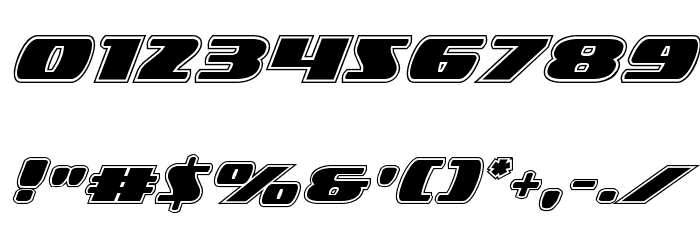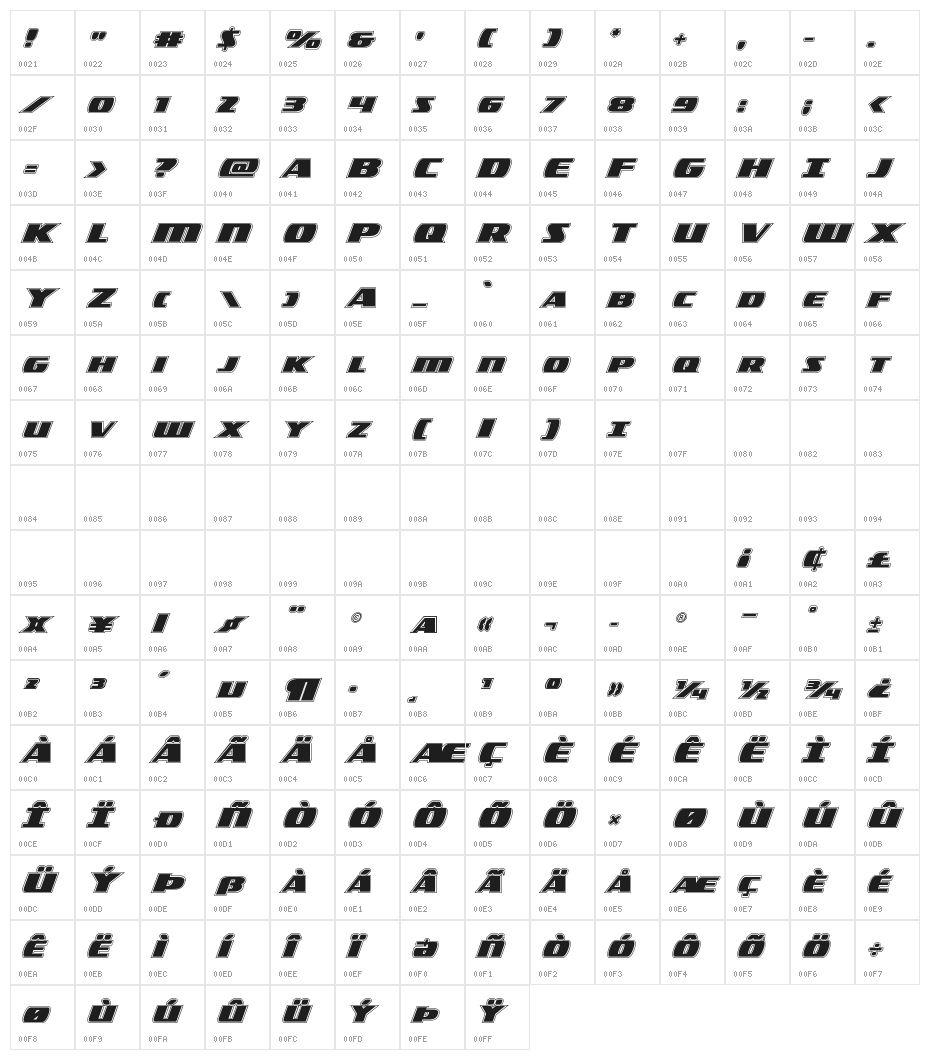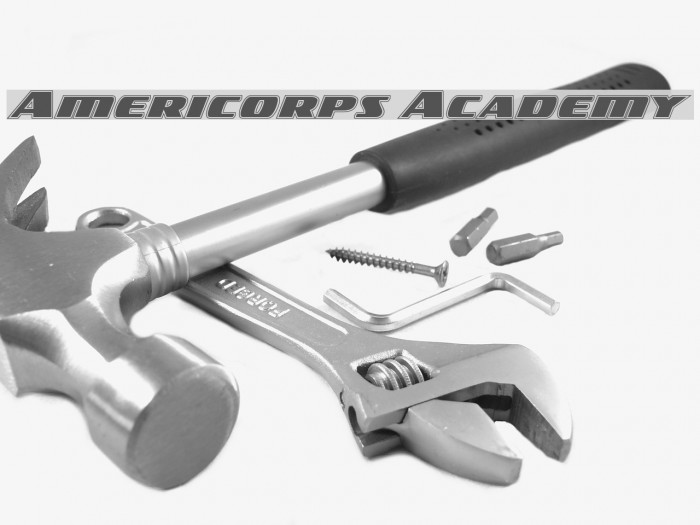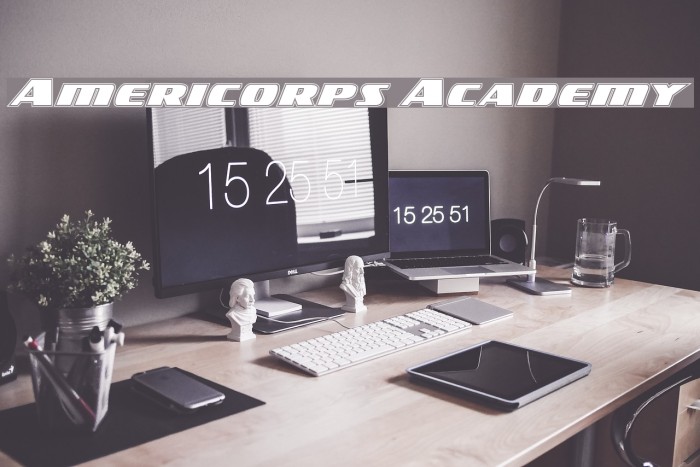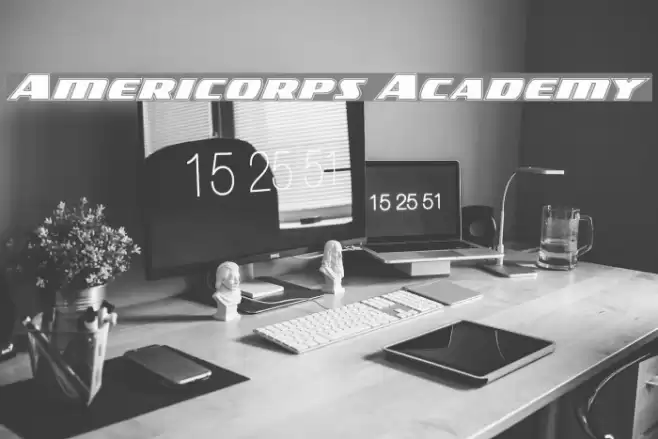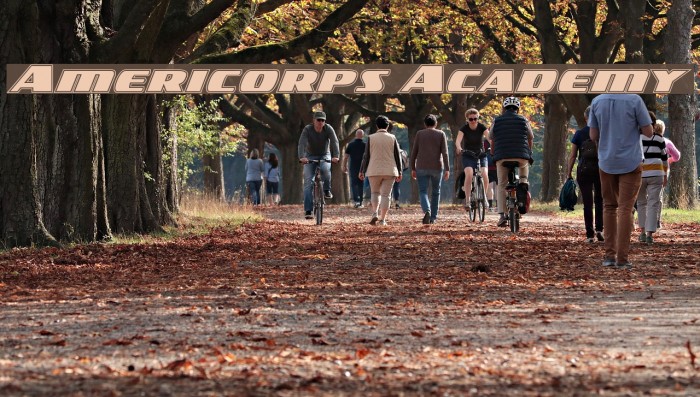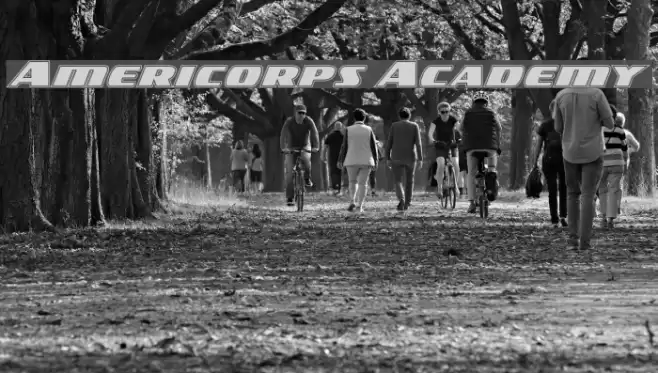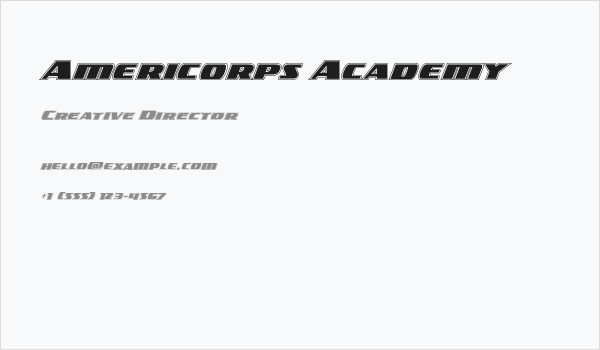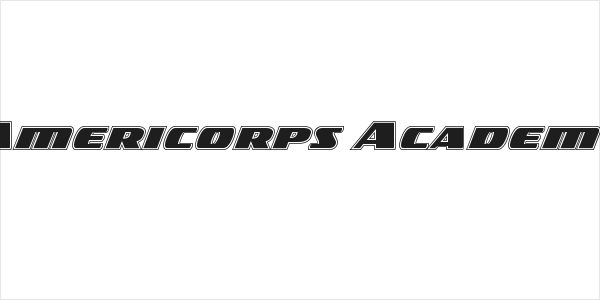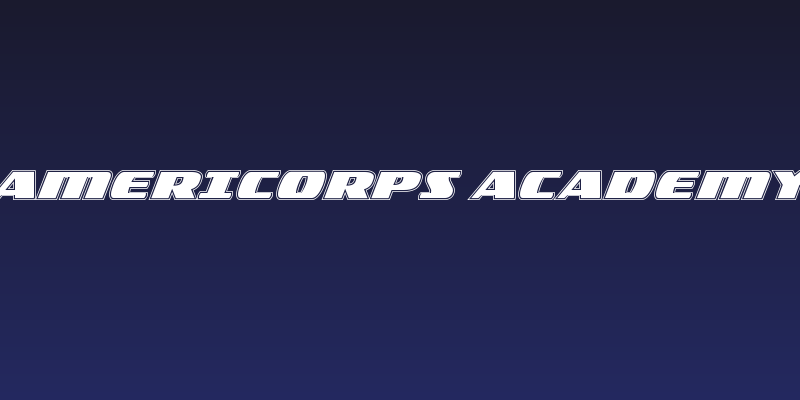
Americorps Academy Font
Americorps Academy Description
This font features a bold, dynamic style with a strong presence. The characters are designed with a distinct slant, giving them a sense of motion and energy. Each letter is outlined, adding depth and a three-dimensional effect. The font maintains a consistent weight throughout, ensuring readability while also standing out. The angular design of the characters contributes to a modern and futuristic aesthetic. The numbers and special characters follow the same stylistic approach, making the font versatile for various applications.